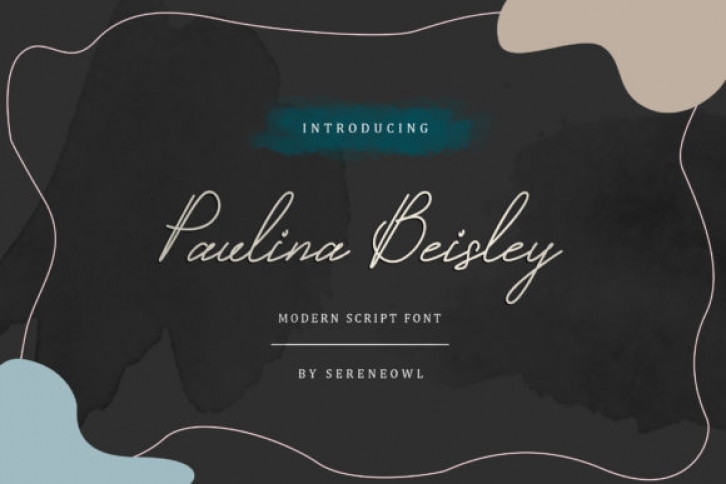
Paulina Beisley is a modern handwritten font in a monoline script style. It is a versatile, modern twist on classic cursive. You can use this typeface for branding, youtube, social media, weddings, stationery, packaging, layout design, and advertising.